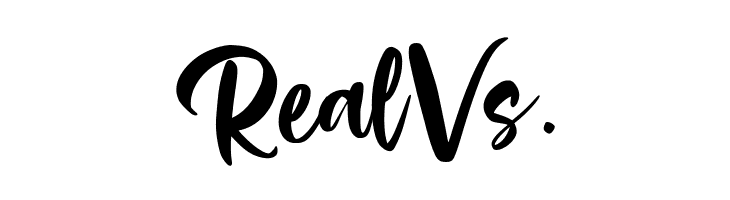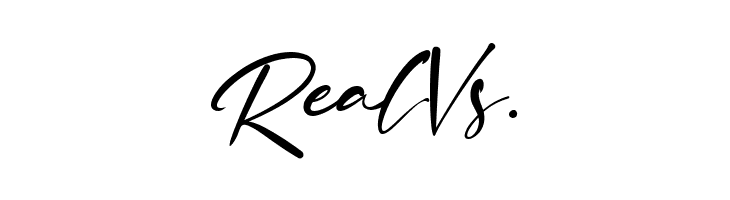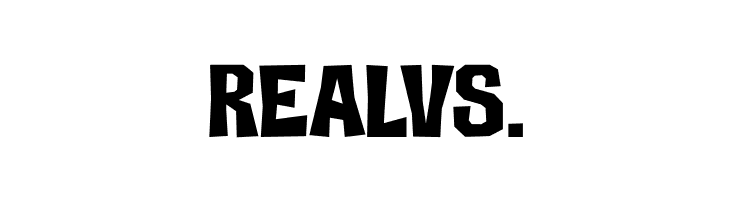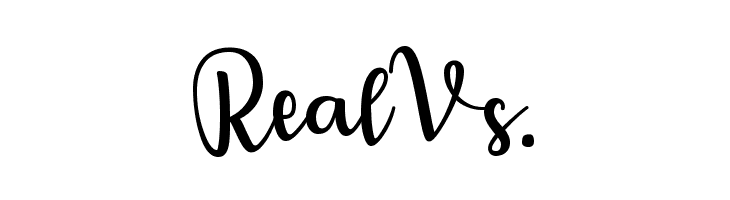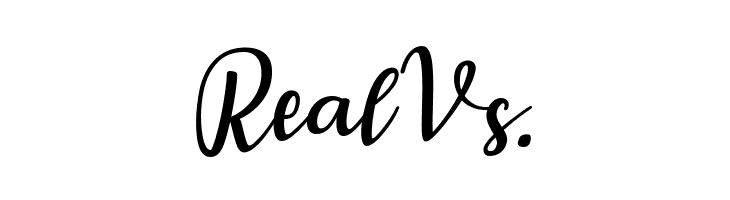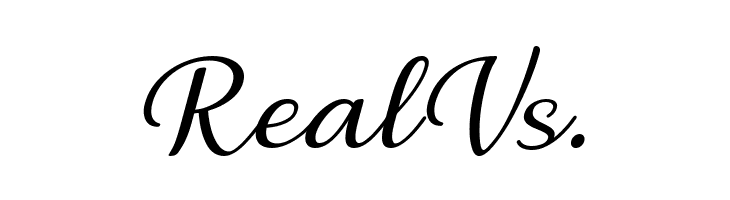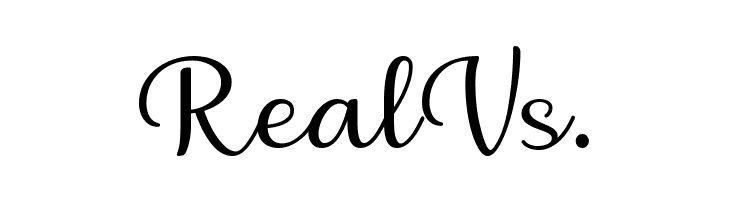
Casual handwritten script font.
A playful, bold, and rounded font with a friendly and approachable style.
A playful, bold, and whimsical font with curvy, hand-drawn style letterforms.
A bold, dynamic graffiti-style font with angular shapes and high contrast.
A playful, ink-splatter-inspired font with a dynamic, dotted design.
A playful and elegant handwritten script font with smooth, flowing lines.
A cursive, italic font with elegant, flowing characters and a handwritten style.
A bold, angular font with a strong, modern aesthetic.
A dynamic and fluid script font with elegant, flowing letterforms.
A playful and elegant script font with flowing, connected letterforms.
A graceful, flowing script font with elegant, connected strokes and an italic style.
A bold, expressive script font with a modern, handwritten style.
A bold, geometric font with a classic video game aesthetic.
A sophisticated serif font with elegant flourishes and classic elements.
An elegant italic typeface with flowing, cursive design and distinctive swashes.
A bold, expressive script font with dynamic, flowing curves.
A bold, flowing script font with elegant, connected letterforms.
A dynamic and elegant script font with flowing, cursive letterforms.
A bold, handwritten font with dynamic strokes and a brush-like texture.
A flowing, elegant script font with a natural handwriting style.
A cursive, handwritten font with elegant curves and artistic flourishes.
A fluid and elegant cursive font with graceful curves and a handwritten feel.
A bold, energetic brush-style font with a hand-painted appearance.
A bold, playful script font with interconnected letters and smooth curves.
A bold, angular font with a rugged, industrial design.
A graceful, handwritten font with elongated, flowing characters.
A modern, elegant script font with flowing, handwritten characteristics.